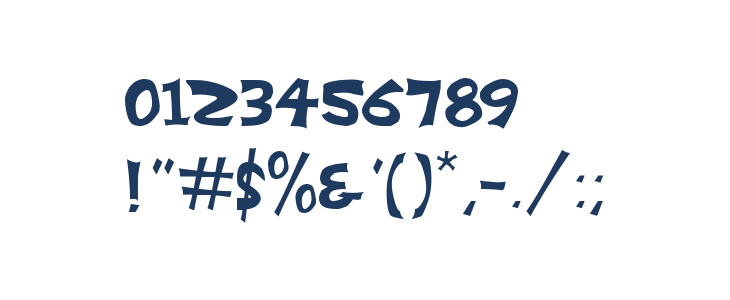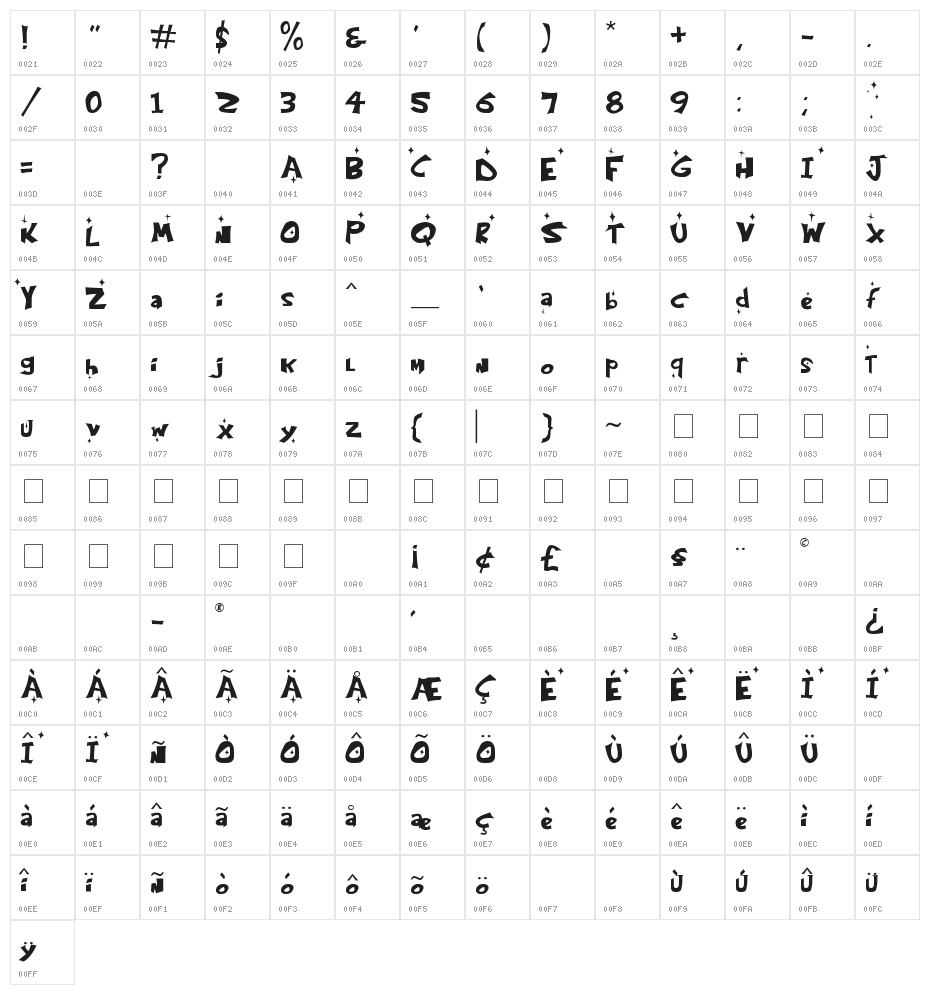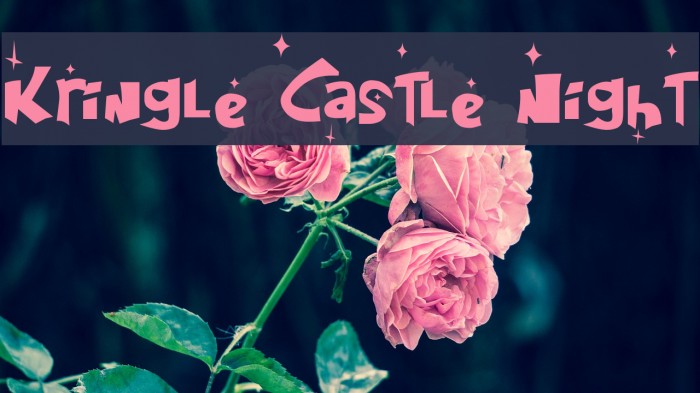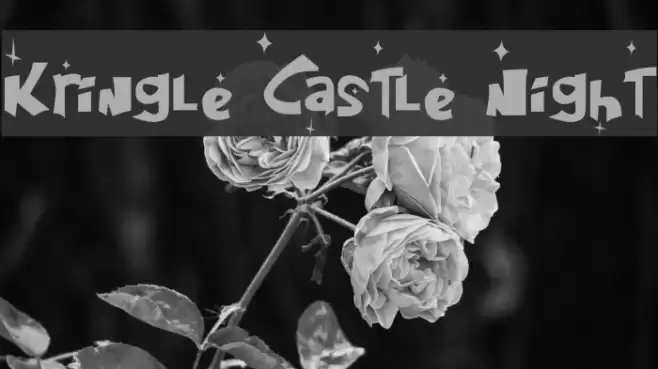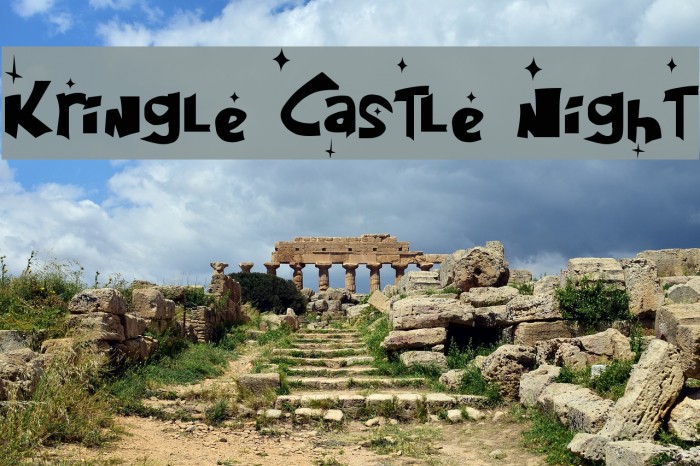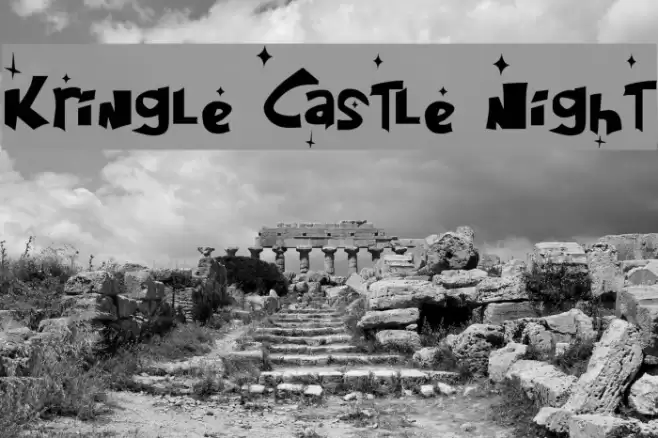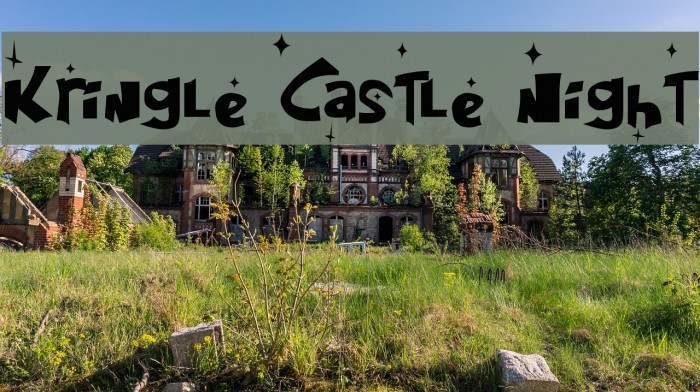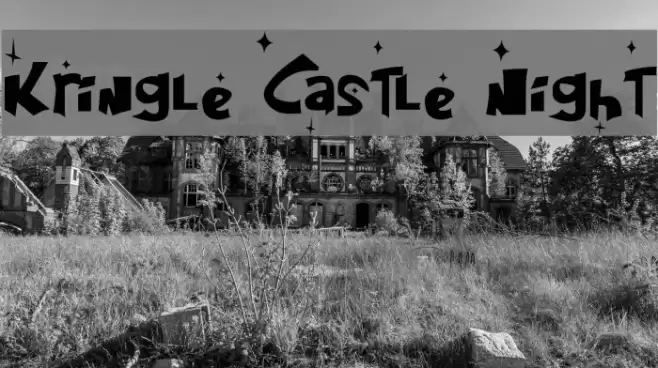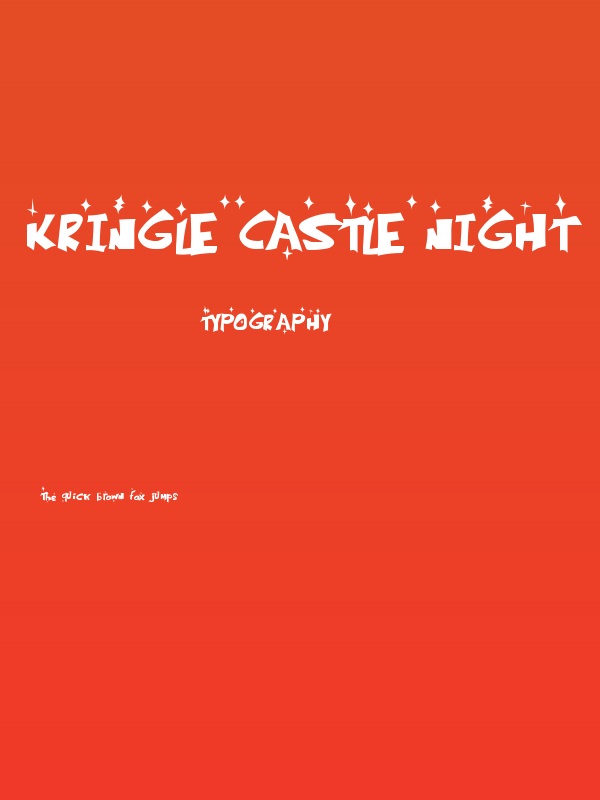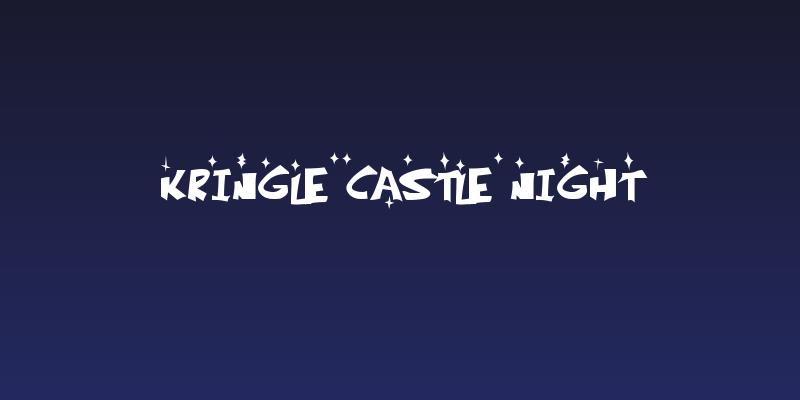
Kringle Castle Night Font
Kringle Castle Night Description
This font exudes a whimsical and playful charm, characterized by its bold, irregular strokes and star-like embellishments. The letters have a dynamic, hand-drawn feel, with exaggerated curves and angles that create a sense of movement and energy. The uppercase and lowercase letters maintain a consistent style, with the uppercase being slightly more pronounced. Numbers and special characters follow the same playful theme, making the font suitable for creative and festive applications. The overall appearance is both eye-catching and unique, perfect for capturing attention in a fun and engaging way.
| Overall Style | Playful, Festive |
| Proposed Projects | Ideal for holiday-themed designs, children's book covers, party invitations, and festive branding. |